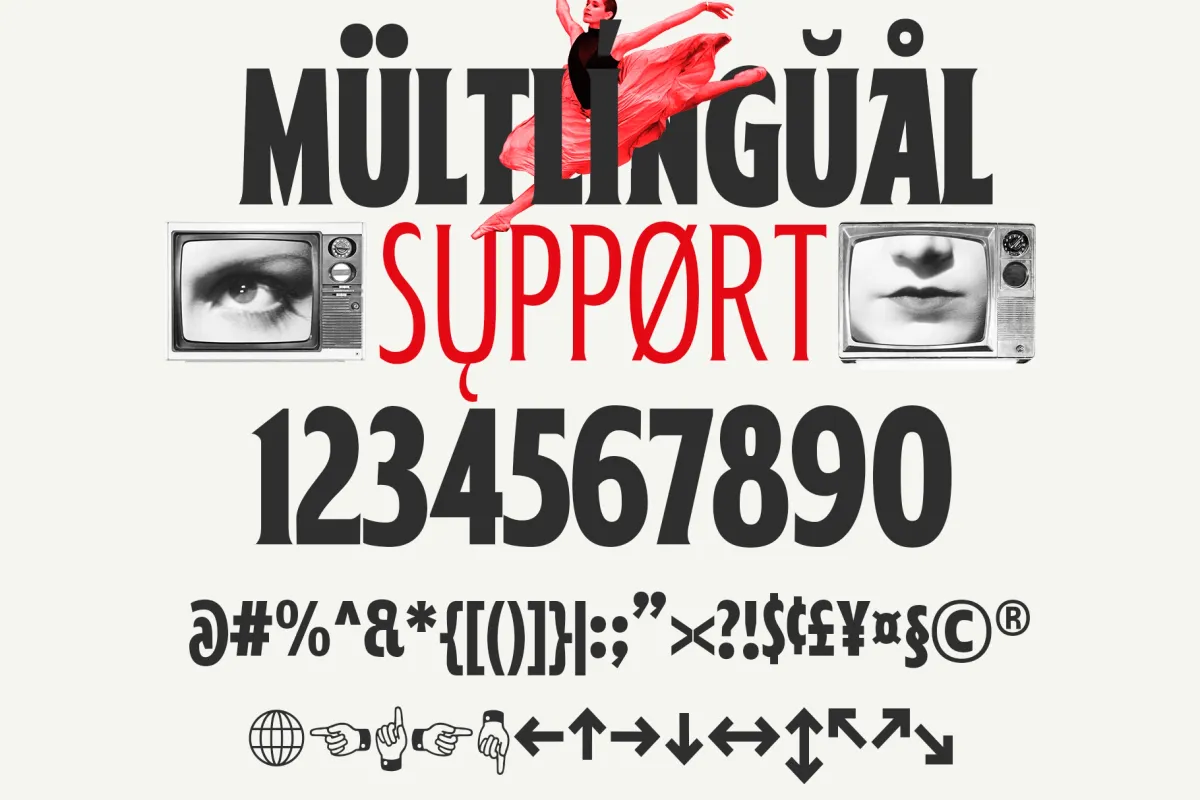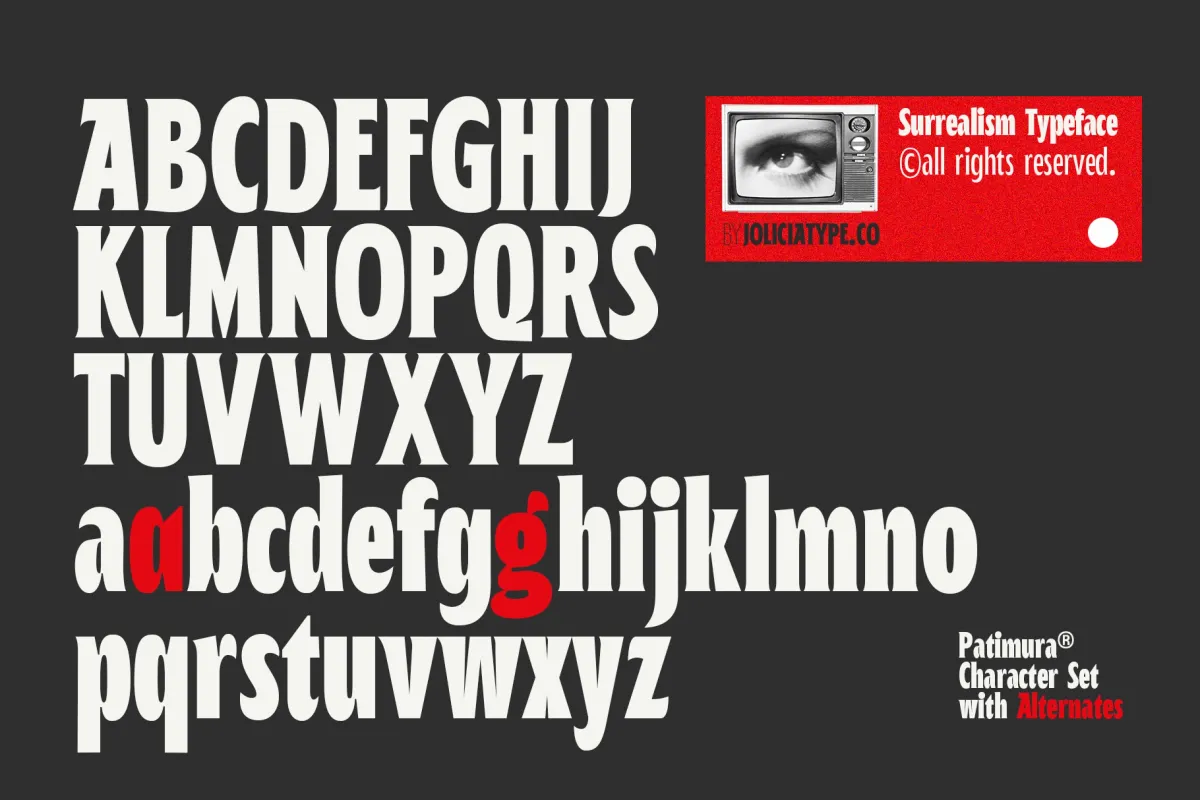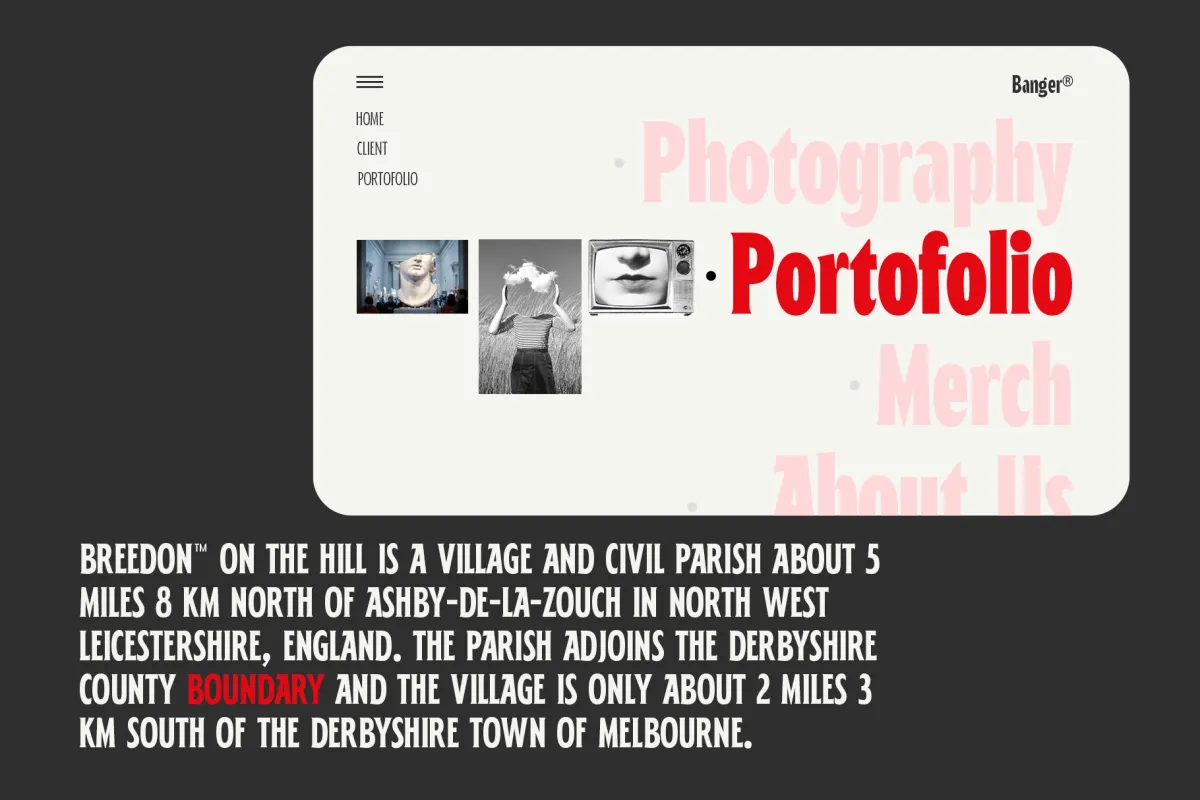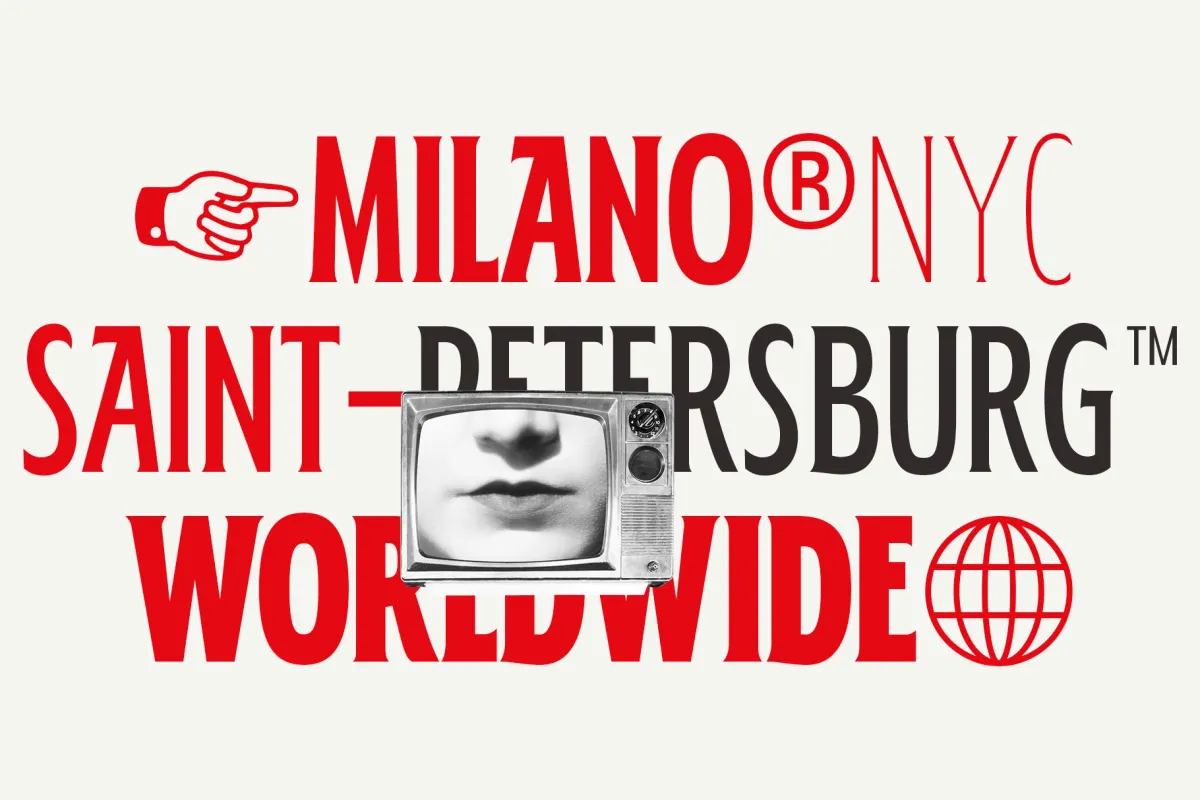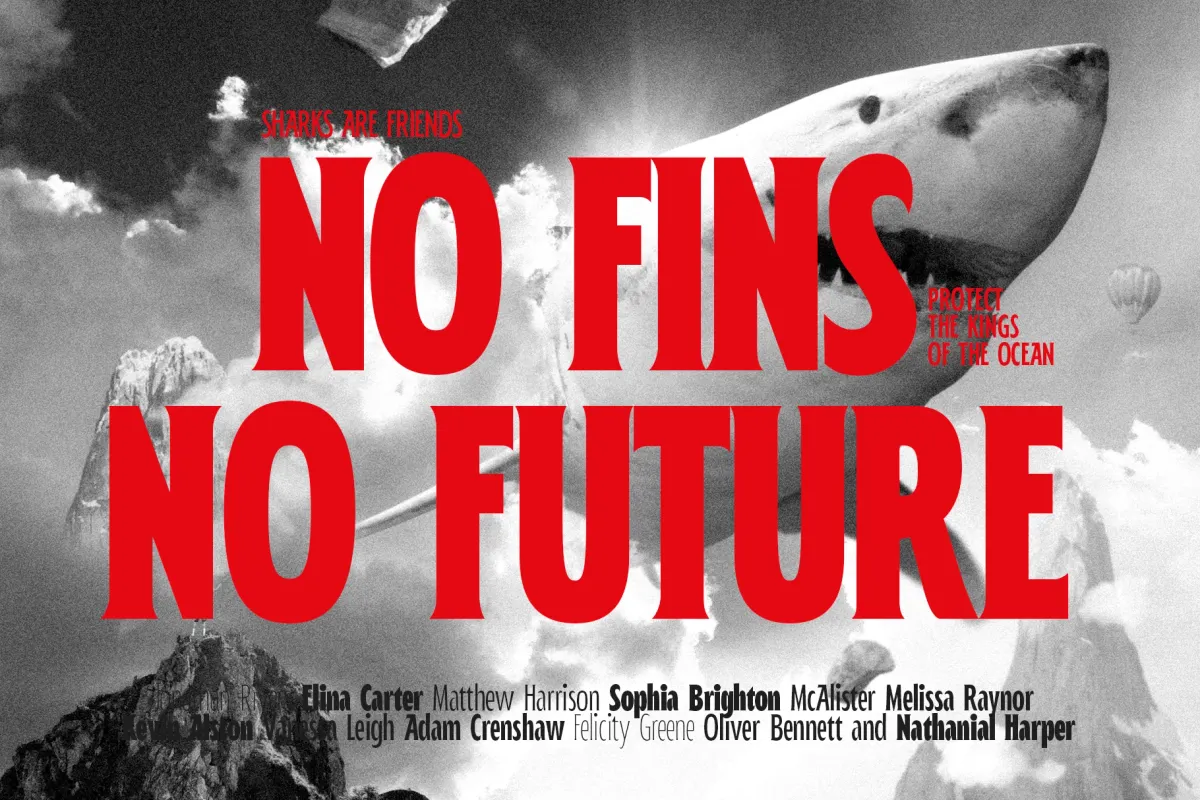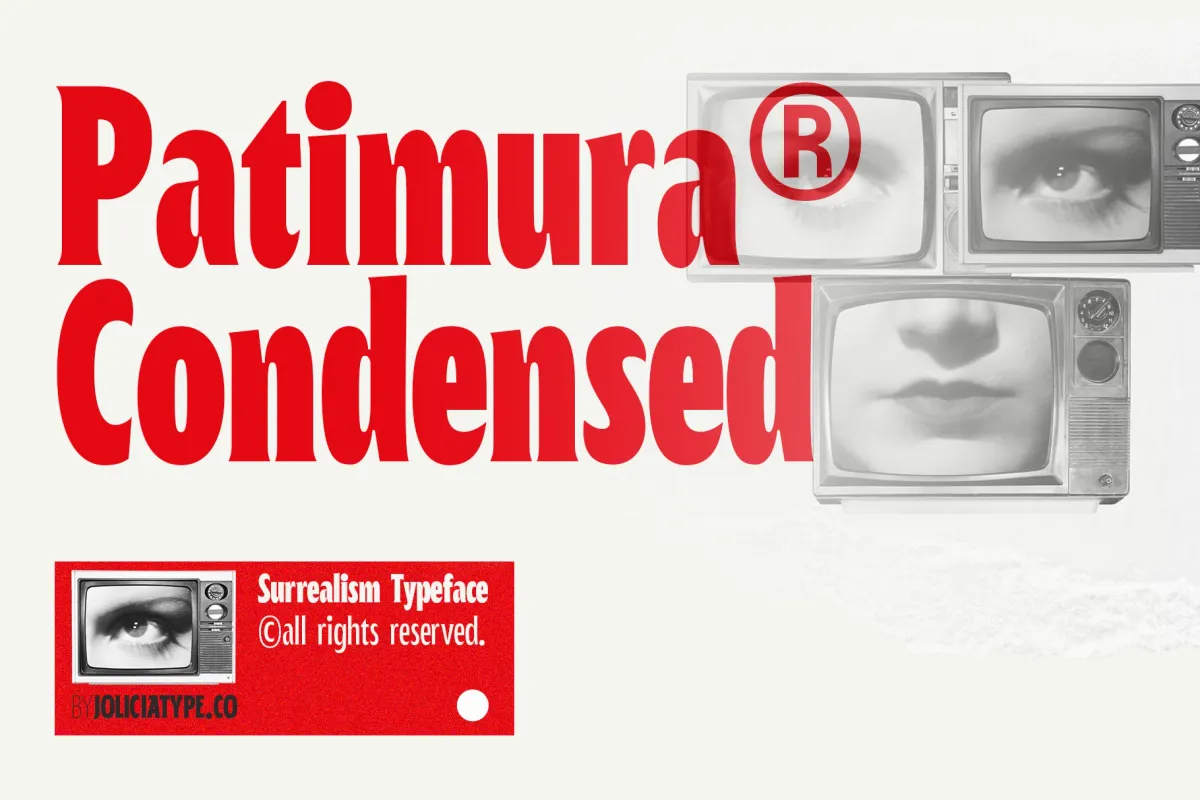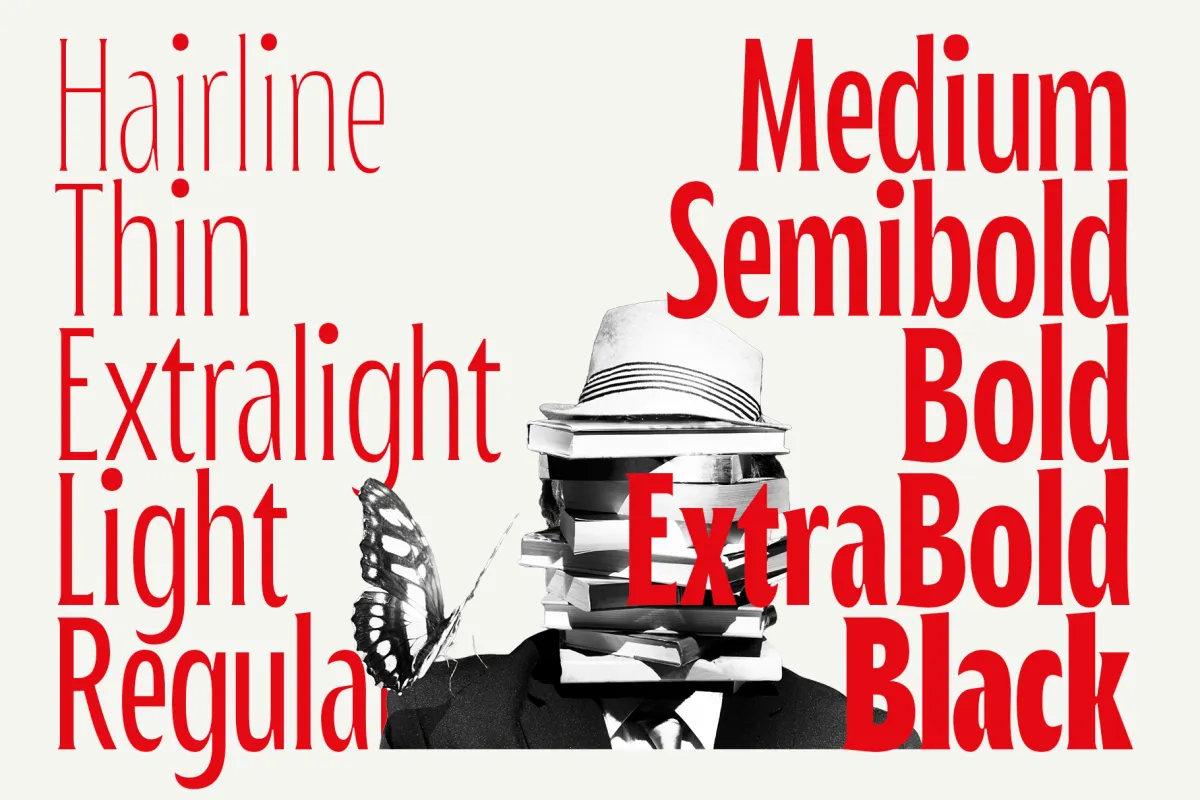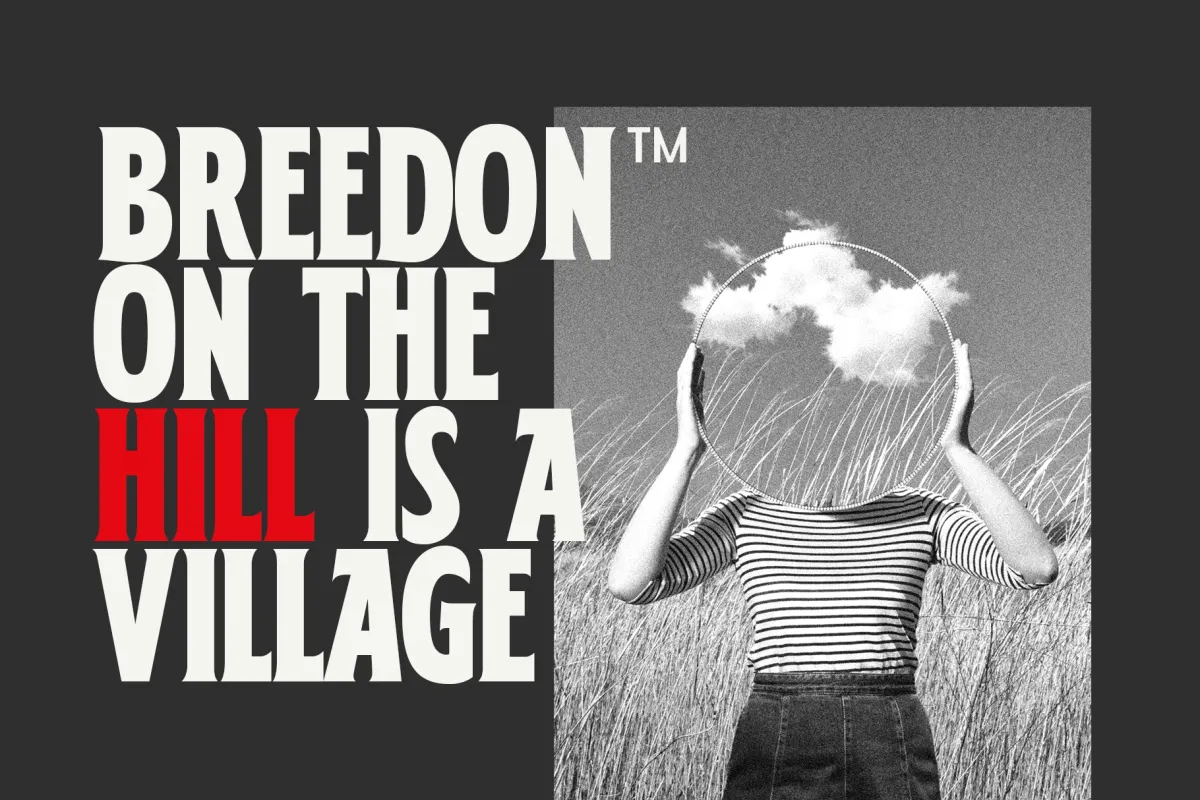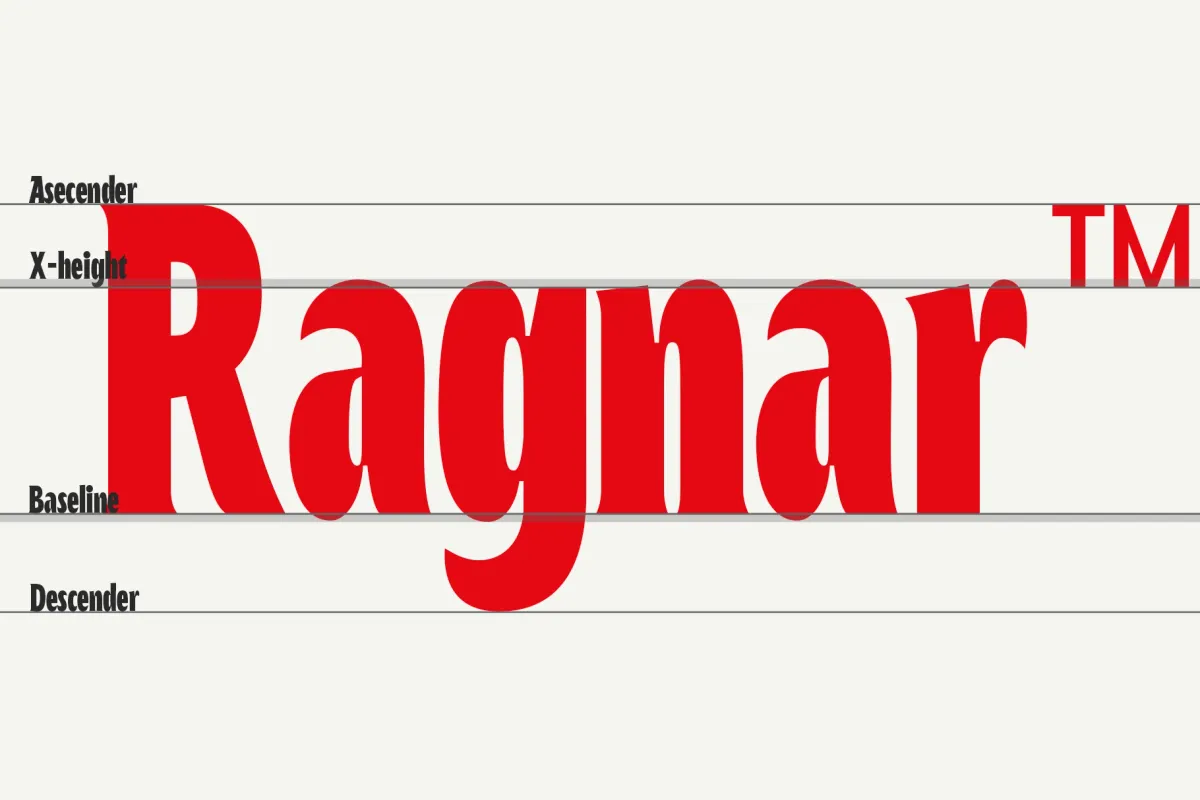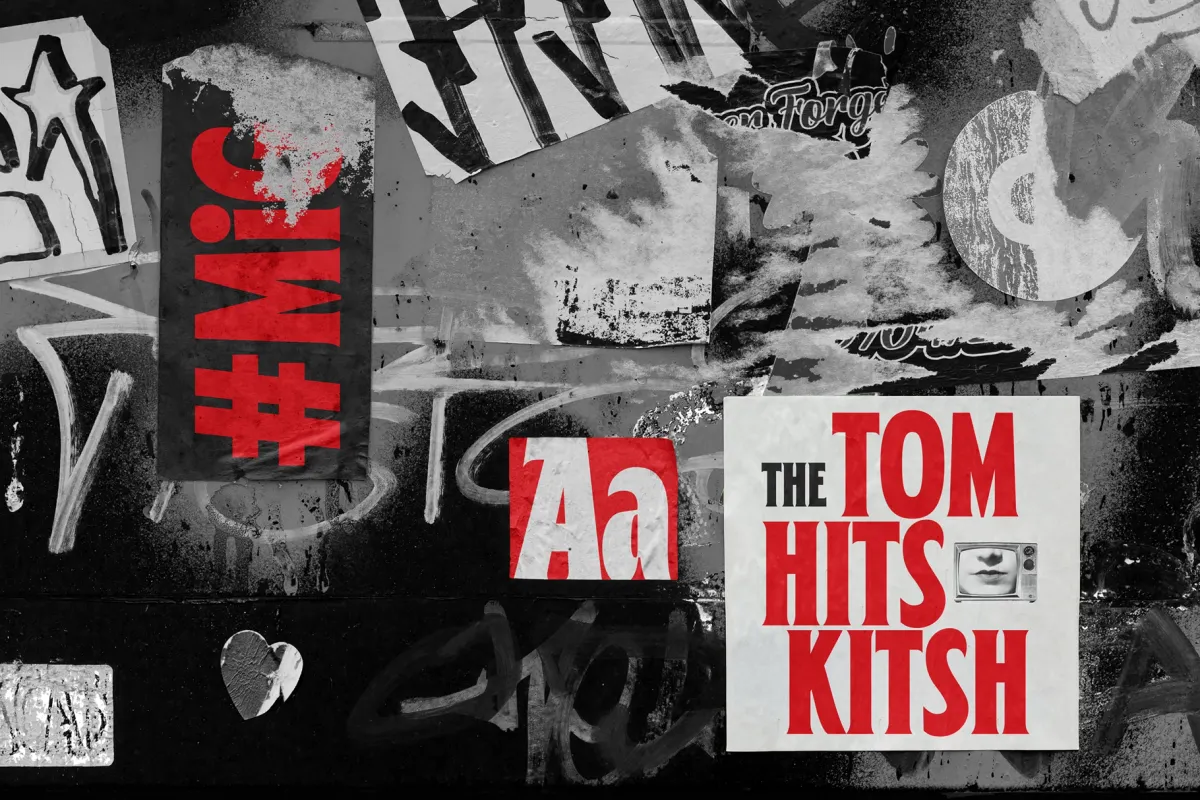
Patimura Condensed - Bold Serif Font Family
Patimura Condensed runs a bold, high-contrast serif spine through ten weights, from a hairline whisper to a black so heavy it dominates a headline on its own. Ball terminals carry through every weight while the stroke contrast sharpens as the weight climbs, so a hairline caption and a black display line still read as the same family rather than two unrelated designs. A stylistic-alternate set swaps in a single-story a and a looped g for a softer, editorial variant.
Use it for editorial headlines, poster and cover typography, branding systems, and packaging that need one family to carry ten distinct weights.
• 10 weights: from Hairline to Black;
• uppercase & lowercase;
• numerals, punctuation & symbols;
• ligatures, discretionary ligatures & contextual alternates;
• superior/inferior numerals, ordinals & fractions;
• stylistic alternates;
• multilingual support